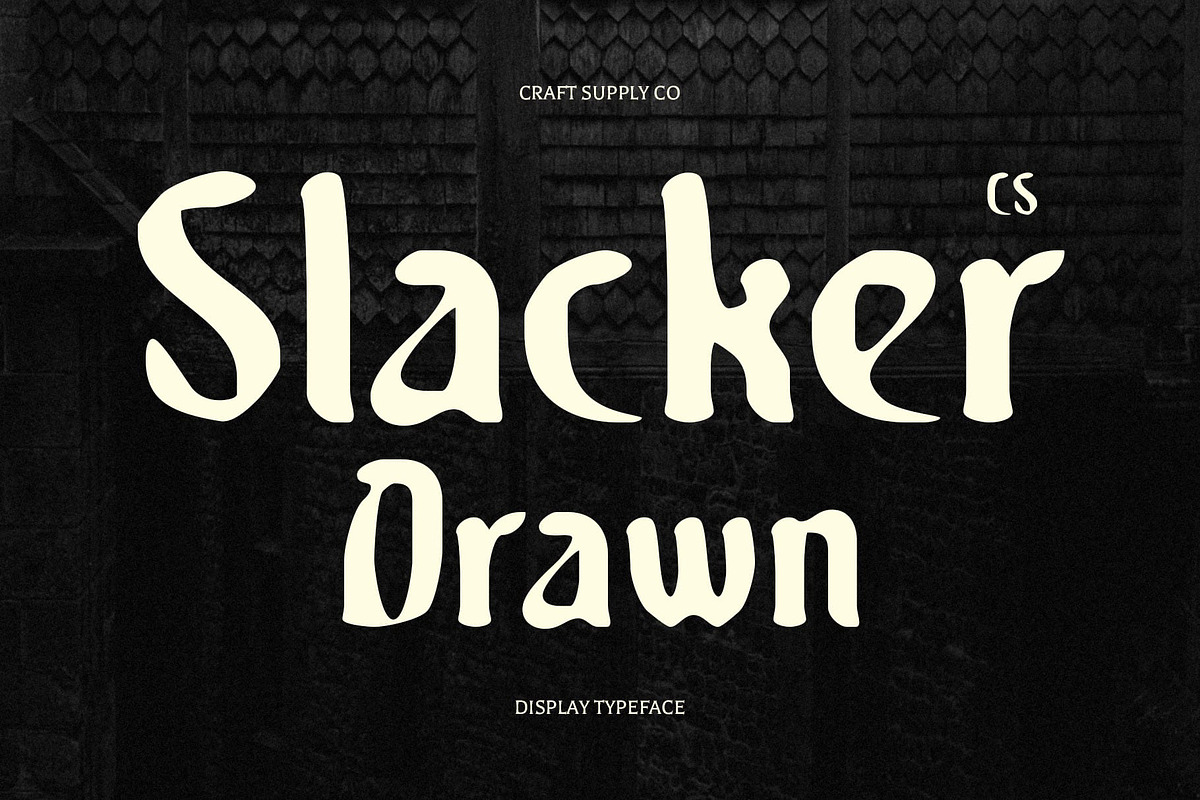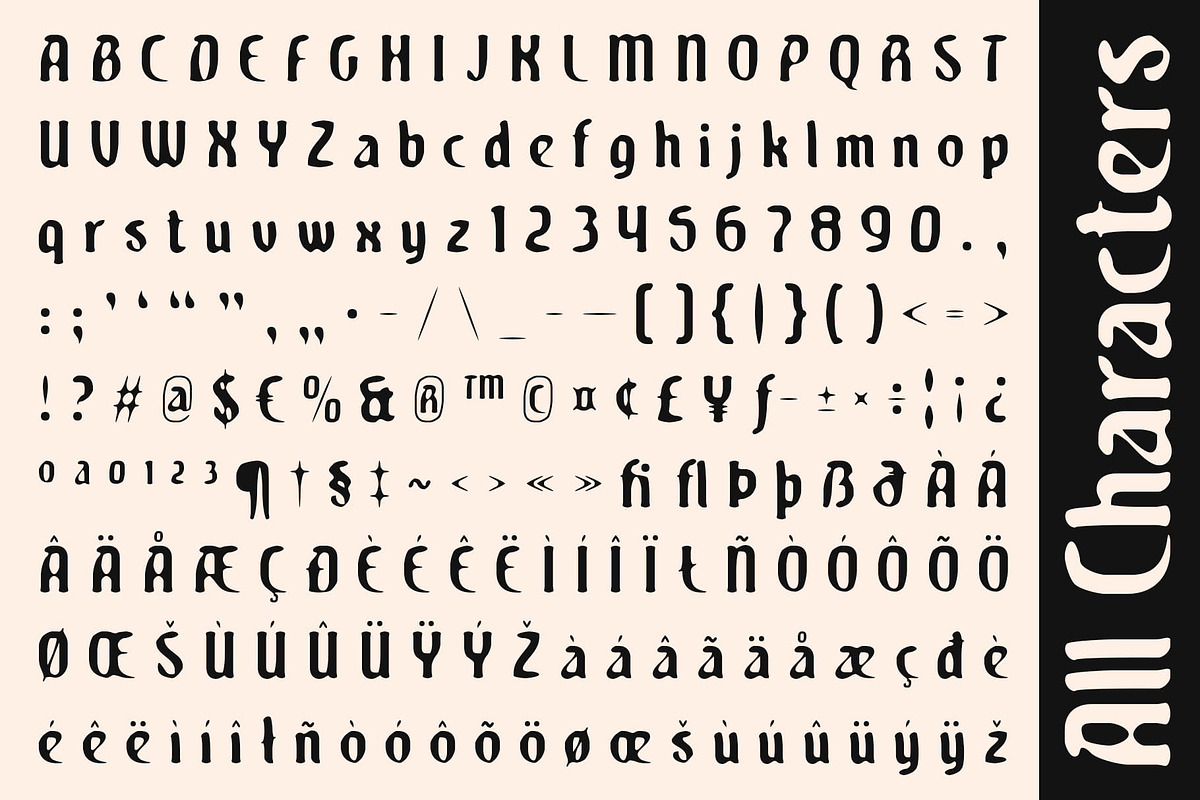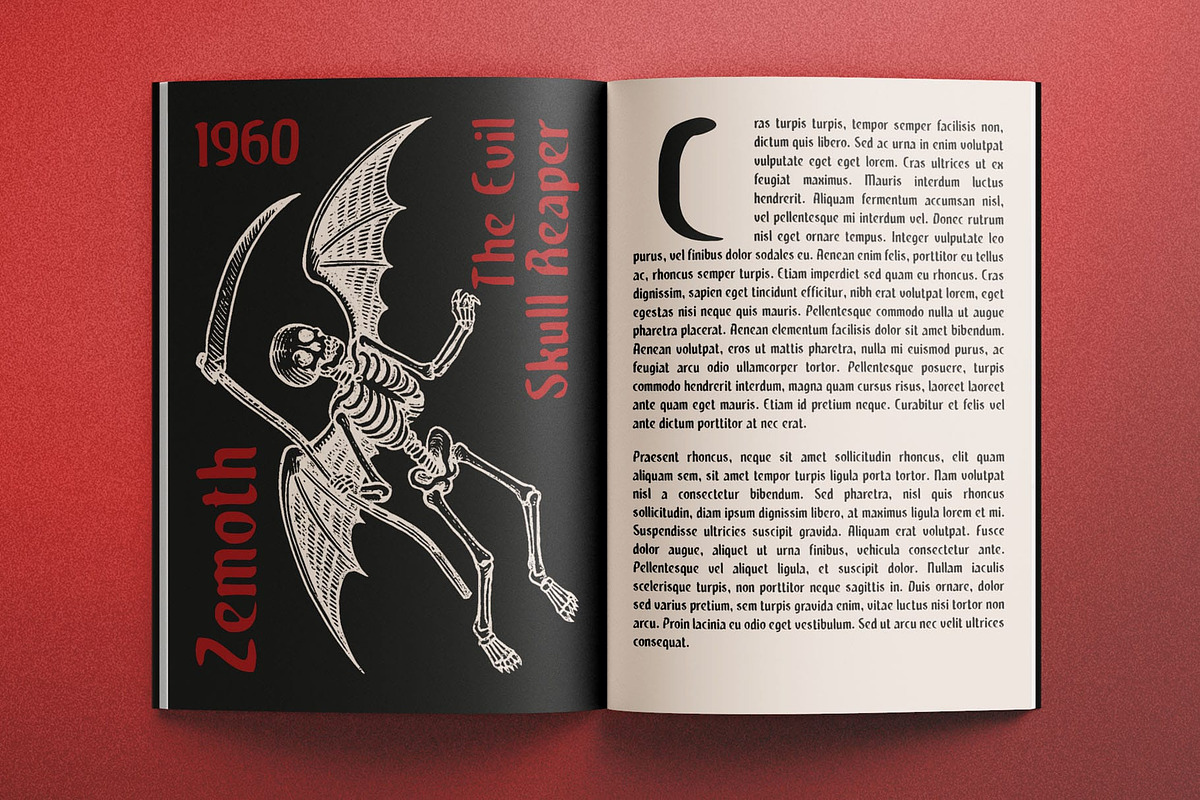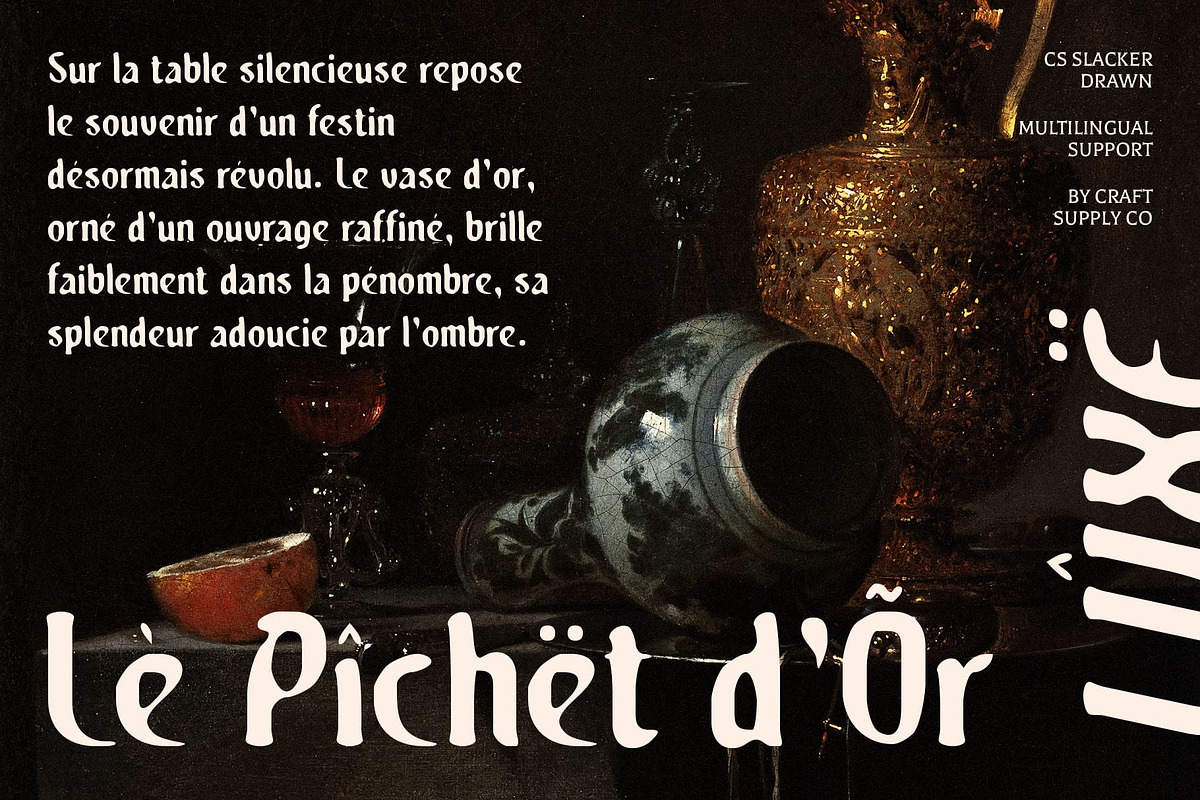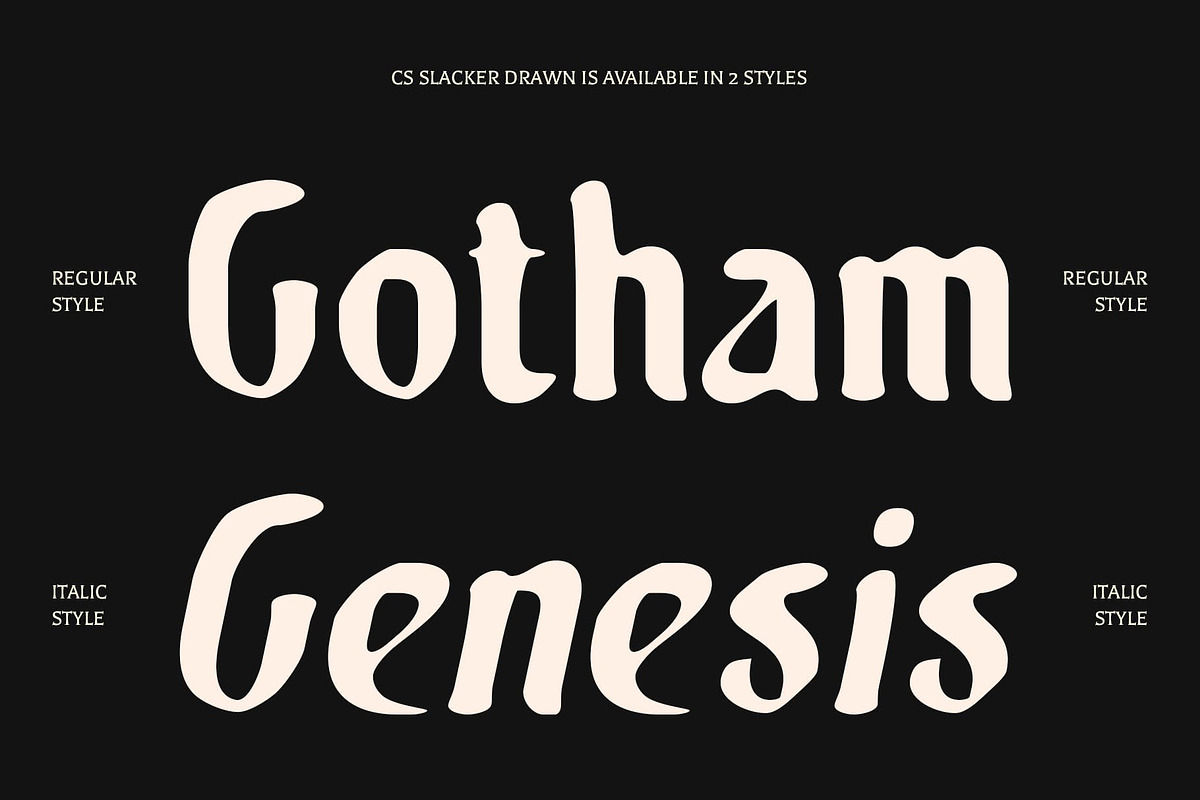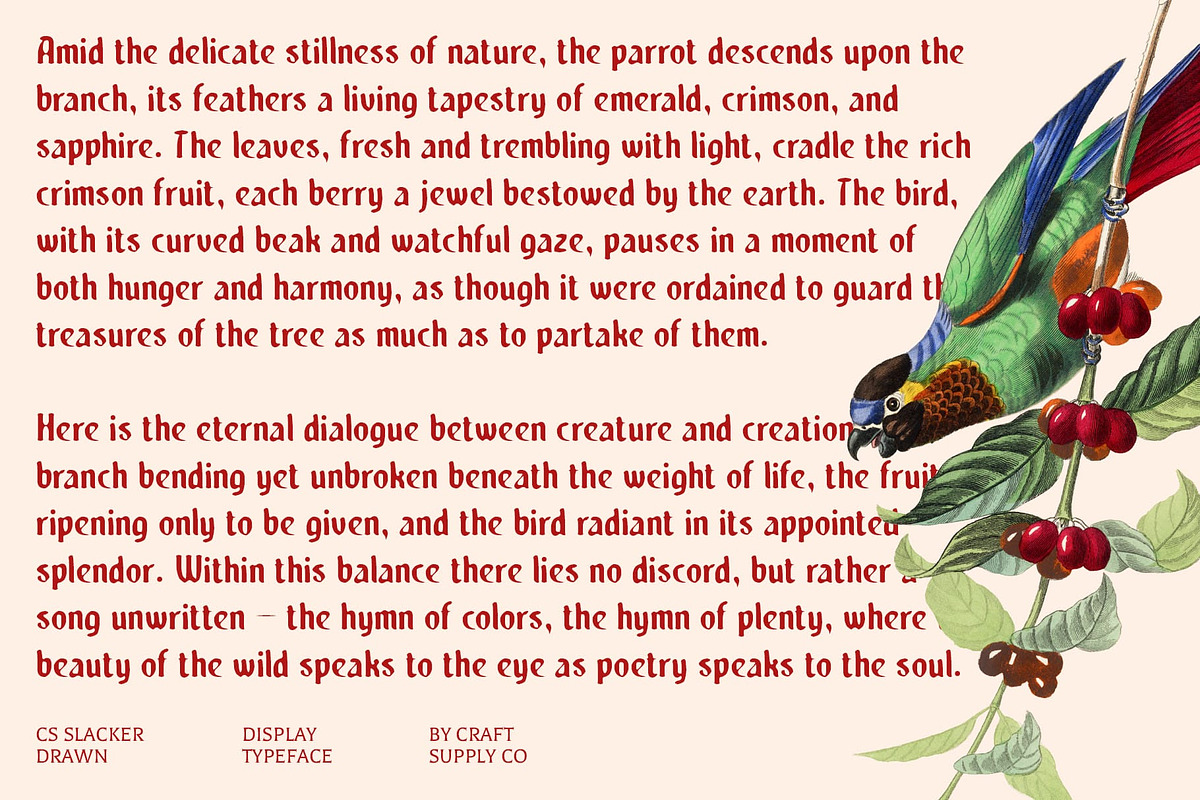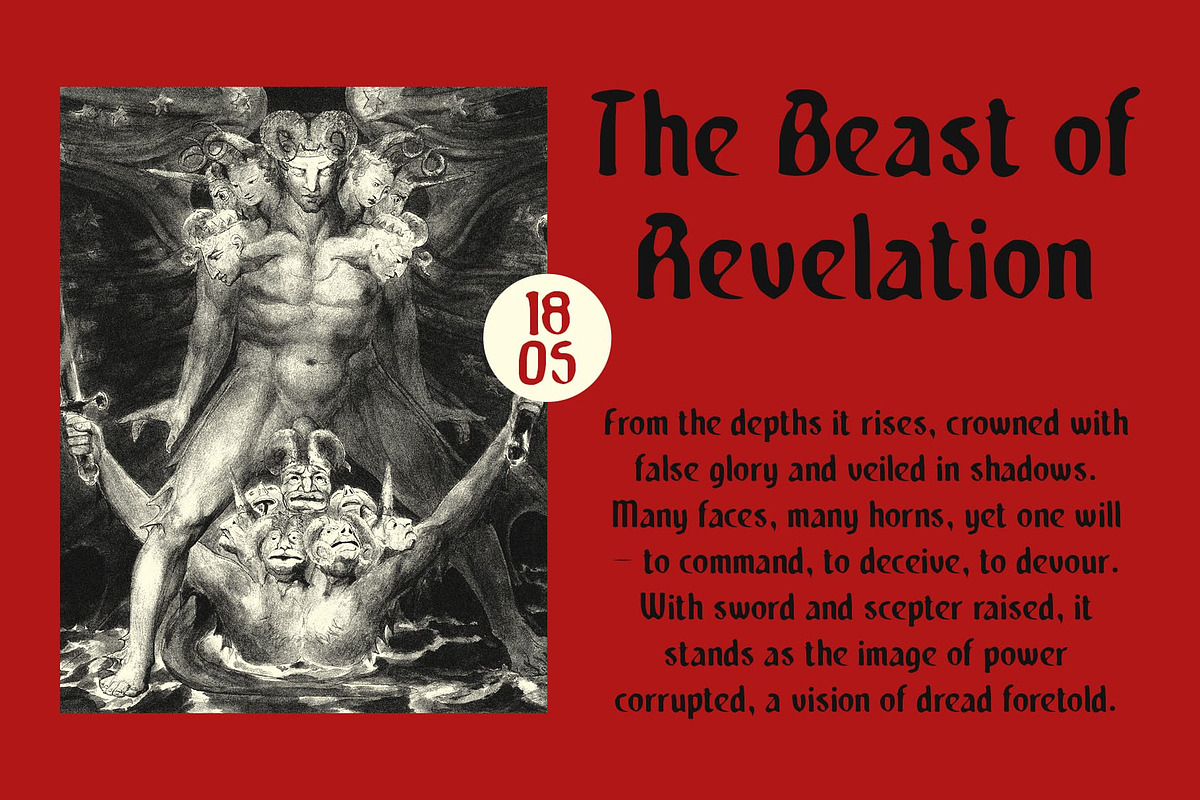
CS Slacker Drawn
CS Slacker Drawn – Modern Blackletter with Artistic Edge
Modern Blackletter with Handmade Personality This font is a modern blackletter font that breaks tradition with bold forms and unique shapes. While it inherits the dramatic essence of historical blackletter, its drawn texture adds a handmade and artistic quality, giving each letter character and depth. This makes the font both classic and contemporary, suitable for designs.
Bold Shapes with Distinctive Impact The bold strokes and sharp details of font create a commanding presence in any layout. Unlike rigid traditional blackletter fonts, its form embraces individuality, blending structure with expressive design. This combination allows designers to capture attention instantly while maintaining a sense of refinement. Whether used for large display headlines or branding elements.
Hand-Drawn Texture for Artistic Expression What sets a font apart is its textured, drawn finish. The handmade detail enhances the font’s uniqueness, adding a tactile and artistic impression that feels authentic and expressive. This touch of imperfection transforms the font into a creative tool that bridges classical inspiration with modern artistry.
Perfect for Versatile Applications This font adapts seamlessly to projects that need both heritage and creativity. It works beautifully on book covers, posters, and branding materials that call for a bold yet stylish aesthetic. Designers can use it to convey mystery, tradition, and personality while ensuring their projects stand out with a distinctive visual identity.